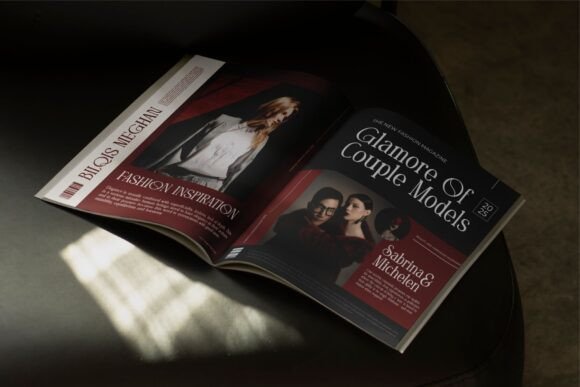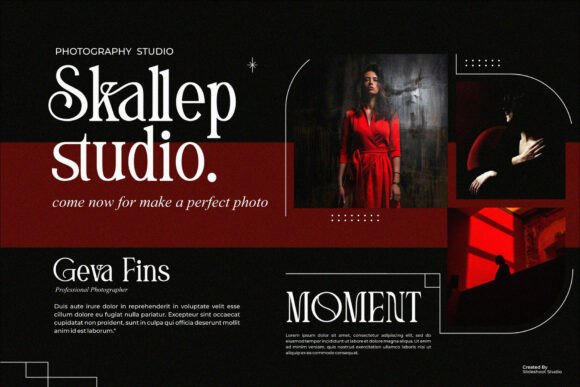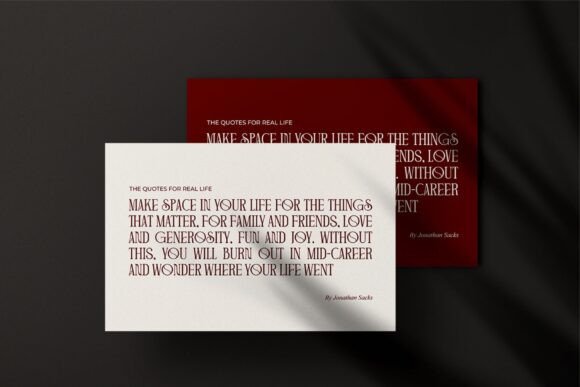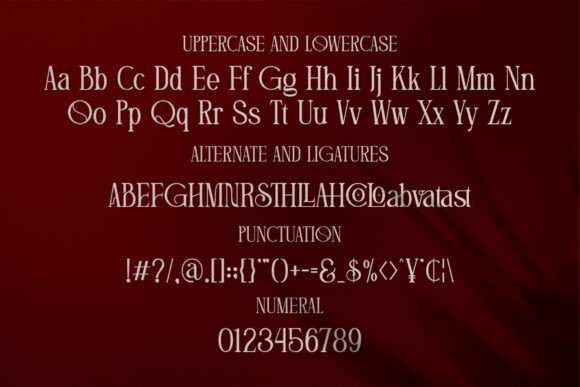
Introducing Geconda Font: A Modern Serif Font with a Unique Wood Theme
Are you a designer or crafter looking for a font that can elevate your designs to the next level? Look no further than Geconda Font, a modern serif font with a unique wood theme that’s perfect for a wide range of design projects. In this article, we’ll take a closer look at Geconda Font and explore its features, benefits, and uses.
What is Geconda Font?
Geconda Font is a serif font with a modern theme that’s designed to add a touch of elegance and sophistication to your designs. Its unique character is inspired by the natural beauty of wood, giving it a distinctive look that’s both stylish and rustic. With its clean lines, classic proportions, and wood-inspired theme, Geconda Font is the perfect choice for designers and crafters who want to create stunning designs that stand out from the crowd.
Key Features of Geconda Font
So, what makes Geconda Font so special? Here are some of its key features:
• Modern serif font: Geconda Font is a modern serif font that’s designed to be both stylish and legible.
• Unique wood theme: Its wood-inspired theme gives Geconda Font a distinctive look that’s both rustic and elegant.
• Clean lines and classic proportions: Geconda Font features clean lines and classic proportions that make it perfect for a wide range of design projects.
• High-quality design: Geconda Font is designed to be high-quality and versatile, making it perfect for both print and digital designs.
Uses of Geconda Font
So, what can you use Geconda Font for? The possibilities are endless! Here are some ideas to get you started:
• Invitation card designs: Geconda Font is perfect for creating stunning invitation cards for weddings, parties, and other special events.
• Company logos: Use Geconda Font to create a professional and elegant logo for your business.
• Movie titles and movie names: Geconda Font is perfect for creating eye-catching movie titles and movie names.
• Business cards: Use Geconda Font to create stylish and professional business cards that make a lasting impression.
• Book titles and brand names: Geconda Font is perfect for creating elegant book titles and brand names that stand out from the crowd.
Benefits of Using Geconda Font
So, why should you choose Geconda Font for your design projects? Here are some benefits of using this amazing font:
• Elegant and sophisticated look: Geconda Font adds a touch of elegance and sophistication to your designs.
• Highly legible: Geconda Font is designed to be highly legible, making it perfect for both print and digital designs.
• Versatile: Geconda Font is versatile and can be used for a wide range of design projects.
• Unique and distinctive: Geconda Font has a unique and distinctive look that sets it apart from other fonts.
In conclusion, Geconda Font is a modern serif font with a unique wood theme that’s perfect for designers and crafters who want to create stunning designs. With its clean lines, classic proportions, and wood-inspired theme, Geconda Font is the perfect choice for a wide range of design projects. Whether you’re creating invitation card designs, company logos, movie titles, or business cards, Geconda Font is sure to elevate your designs to the next level.